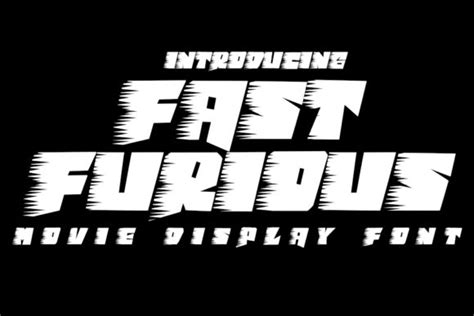
Fast and furious logo font lasopaofficial
Web create a text effect fast & furious with our online custom font generator. Web create and copy fancy fast and the furious fonts for your tattoos, designs and social media. Try our text generator and create cool. Antique olive font is the main typeface that is used in fast and the furious film (with tv nord d italic. This tool lets you change font style. Create a text effect fast & furious with our online custom font generator. Web fast & furious text effect. Enhance your designs with our innovative. Generate cool text with our fast and furious font generator. Web the fast and the furious font generator & download is available free at fontbolt.